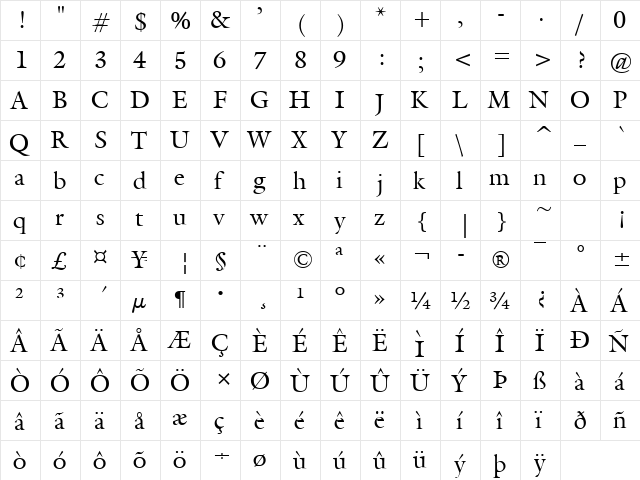
Joulliard Regular
Design Context for Joulliard Typeface
Joulliard is a composed and adaptable typeface that performs quietly and consistently across a wide range of design contexts.